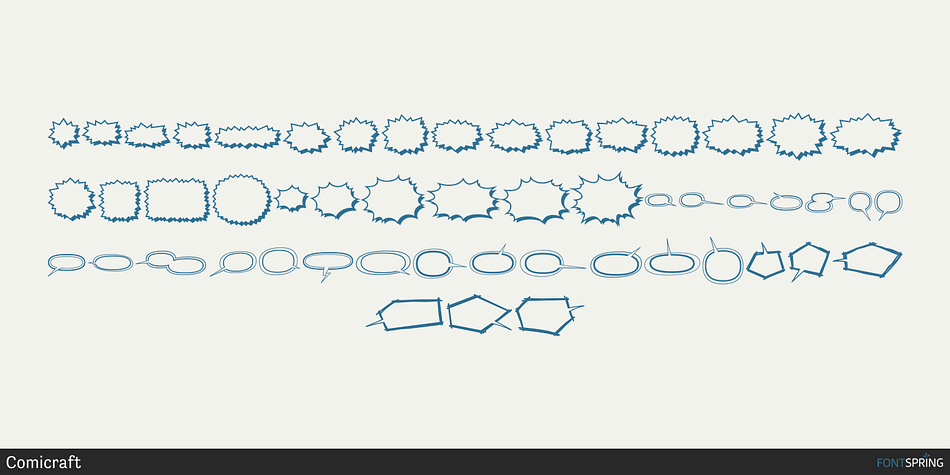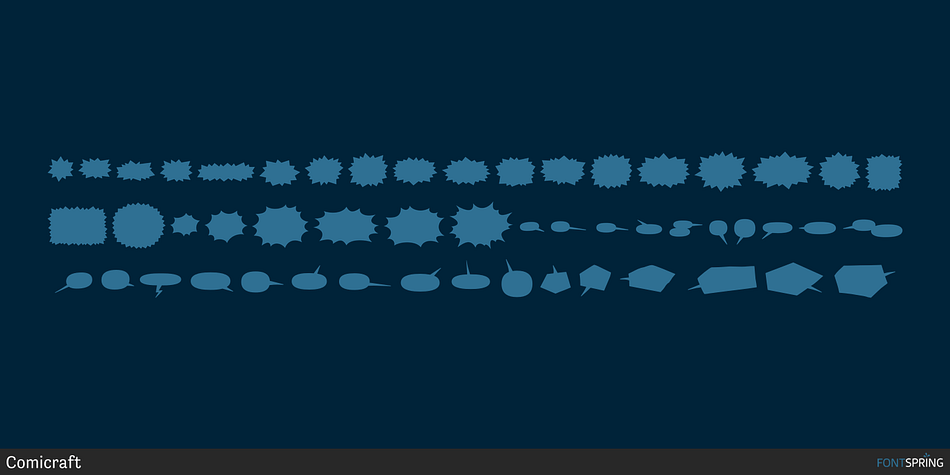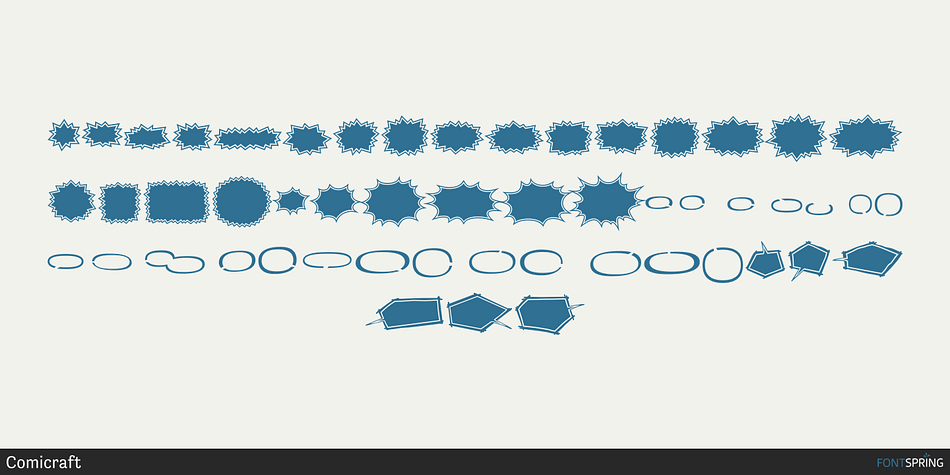
Designed by John Roshell, Comicraft Outburst is a dingbat font family. This typeface has three styles and was published by Comicraft.
There’s a quiet moment, perhaps a long drawn out pause, and then… a sudden emotional outburst! You witness a powerful burst of noise — violence the like of which you have never seen in a comic book before… And yet, somehow you understand it, because the change in tone and volume is underscored by a scalloped, spiky or double-outlined balloon!
ComicraftOutburst is perfect for dramatic exhortations in stormy scenes wherein characters seem to be screaming and yelling at each other. But use with caution… ComicraftOutburst may cause severe personality changes and provoke dramatic alterations in the perception of your central characters.